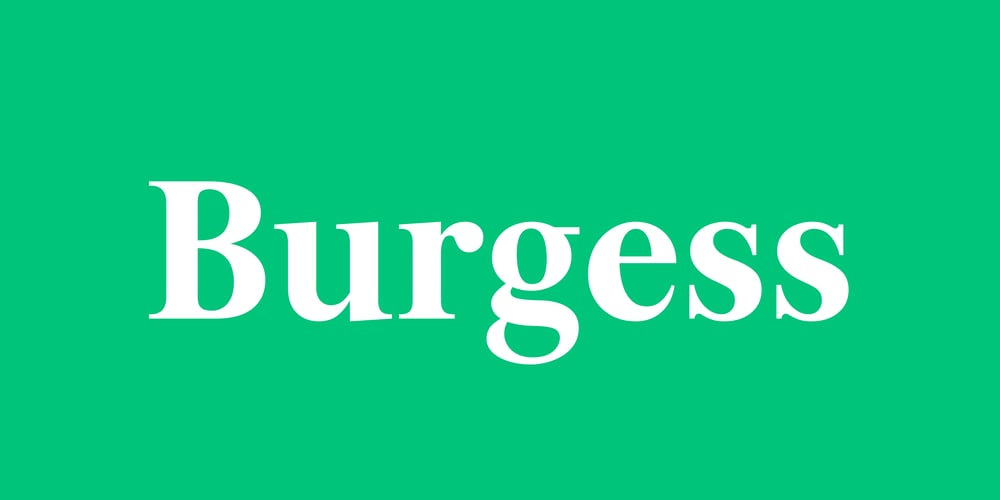
Burgess Font Family was designed by Colophon Foundry and published by Colophon Foundry. Burgess contains 6 styles and family package options. Burgess is an idiosyncratic and subjective reinterpretation of midcentury Photostat cuts of Times New Roman Bold & Bold Italic. While Times was initially said to have been drawn for the British newspaper The Times in 1931 by Victor Lardent and Stanley Morison, several type historians believe the design was based on an earlier work by the American industrial designer William Starling Burgess. Burgess, whose own drawing purportedly dates to 1904, was known primarily for his contributions to aviation and maritime histories, as well as his later-life collaborations with figures like Buckminster Fuller.Burgess was drawn specifically for an exhibition celebrating the foundries half decade existence, FIVE YEARS, acting as a neutral accompaniment to the plethora of typefaces presented as part of the celebration.